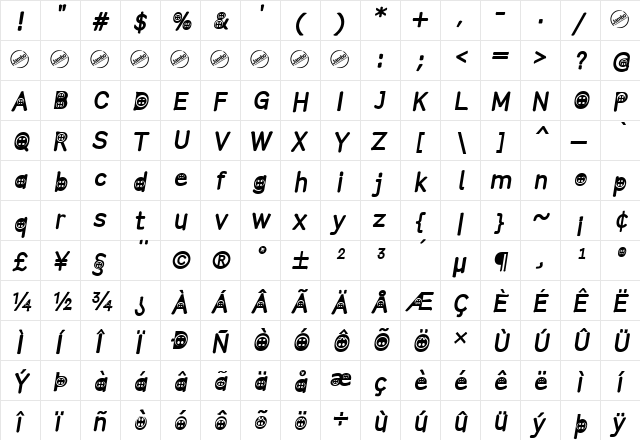
Button T. Italic
Design Context for Button T. Typeface
Button T. offers clean, dependable letterforms without strong stylistic allegiance, making it a practical choice for designers who need flexibility. Its italic angle brings a sense of urgency and motion to the letterforms.
Pro Tip: Use Button T. for emphasis, pull quotes, and subheadings where its slanted energy can add rhythm to the layout.